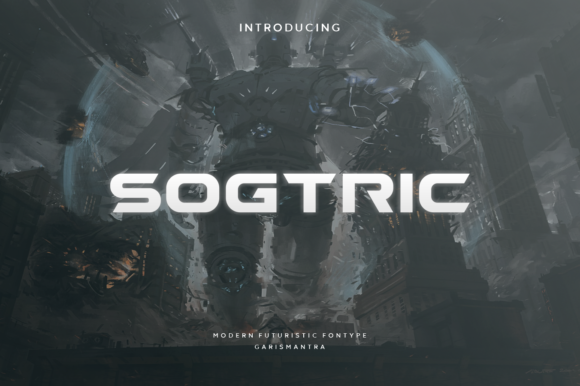
Are you ready to take your designs to the next level? Look no further than Sogtric Font, the ultimate choice for those seeking the best fonts for movie credits. Created by the talented garismantra, this font family is the epitome of a futuristic design and space font technology.
Sogtric Font is more than just a font – it's a statement. With its clean and modern aesthetic, this typeface is incredibly versatile, making it the perfect choice for displays, branding, and headlines. Whether you're working on a cutting-edge project or looking to add a touch of sophistication to your designs, Sogtric Font is here to elevate your work.
What sets Sogtric Font apart from the rest is its ability to transcend time. Embrace the future with its sci-fi, cyberpunk, or robotic theme, and watch your designs come to life. This font will transport you to a world where creativity knows no bounds.
Imagine the impact you can create by using Sogtric Font in your movie credits. Its captivating and eye-catching design will leave a lasting impression on your audience, setting the perfect tone for your cinematic masterpiece. Let your creativity soar as you dive into the world of Sogtric Font.
Unleash your imagination and let Sogtric Font guide you towards stunning visuals that will captivate your audience. It's time to stand out from the crowd and make a statement with your designs. Embrace the future of typography with Sogtric Font – the font that will take your creations to new heights.